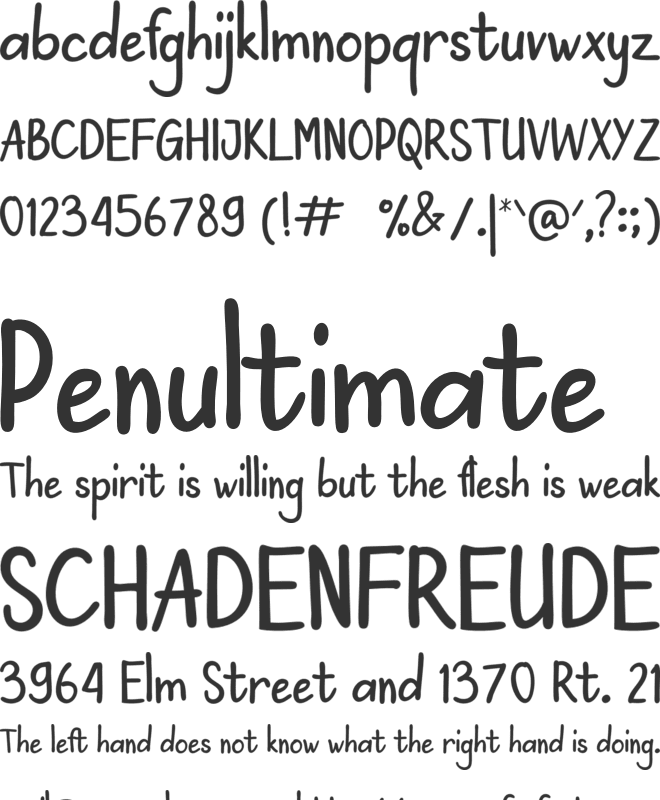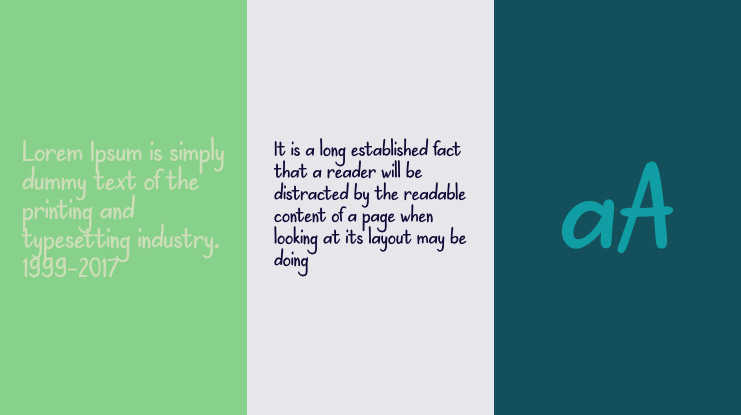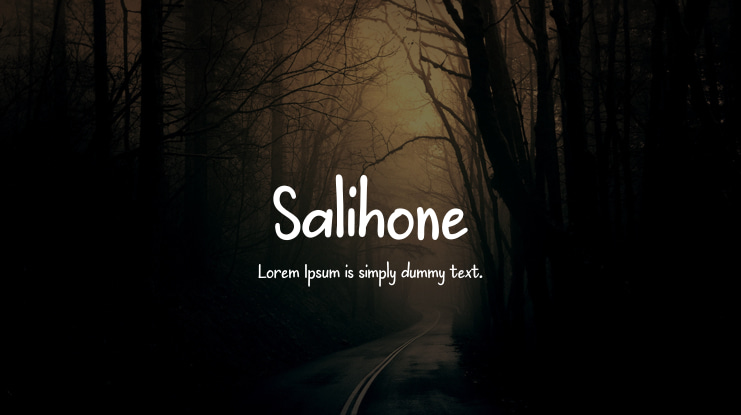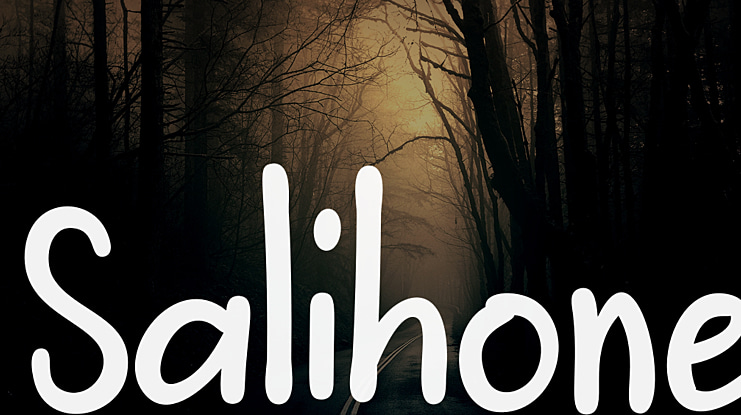
Salihone is a font designed to showcase the handwriting of children who are learning to write. It's a great choice for projects related to children's themes or comic themes, as it exudes a cheerful and playful vibe while ensuring easy legibility for young readers. Having this font installed on your device will add value to your work.